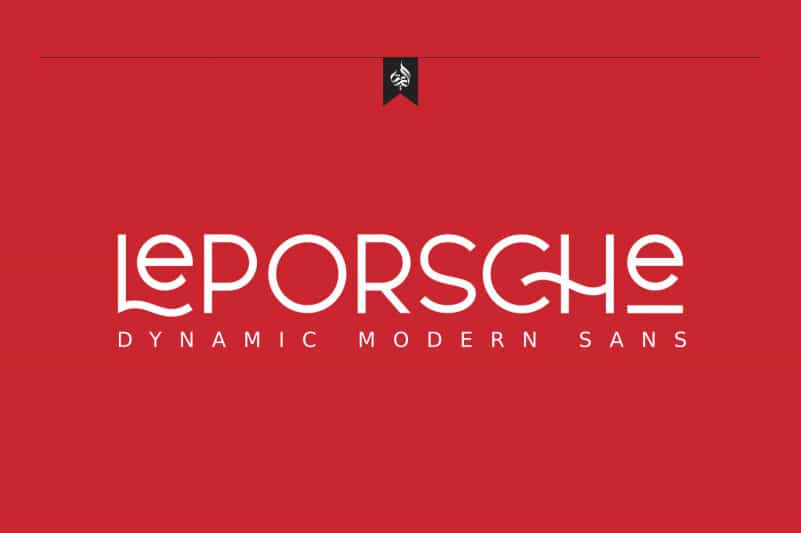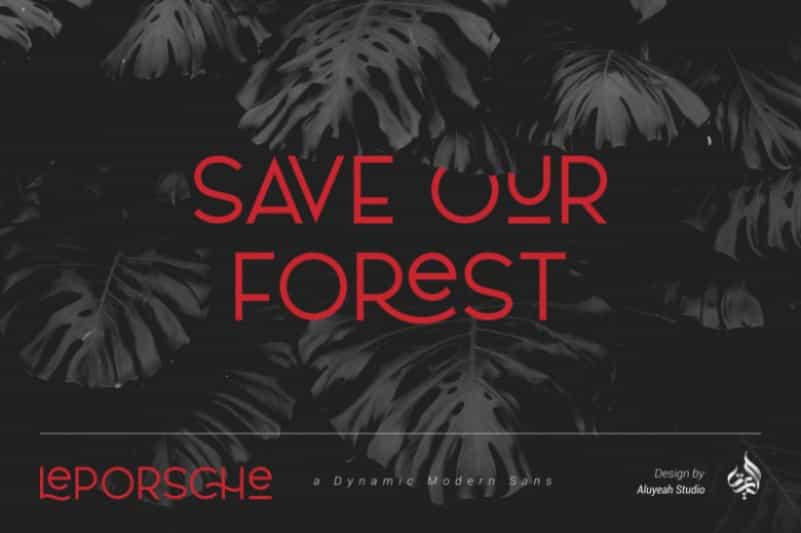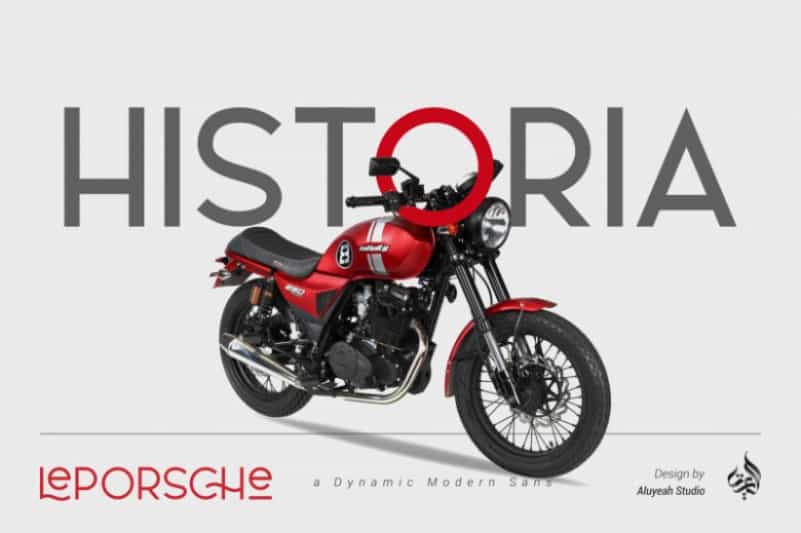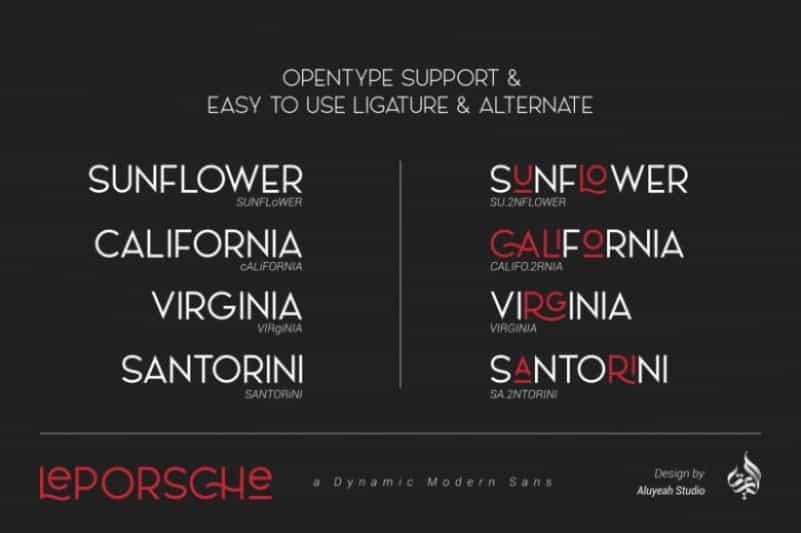
The Le Porsche is a new type font that is modern display sans font with a bold look and powerful. It is developed and posted by Aluyeah Studio. It is a contemporary sans serif typeface with a cool touch to it. It is composed of straight and cut lines that are complemented by circles in order to achieve balanced contrast and a stylish design.